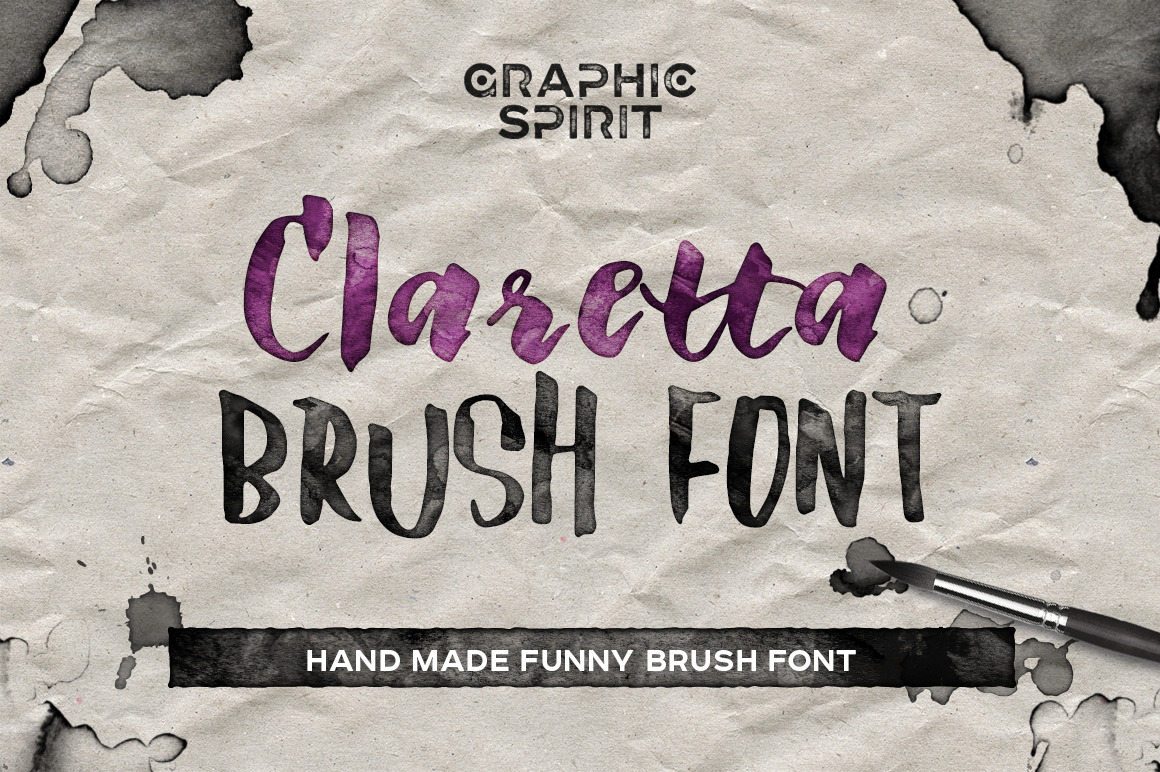
Claretta Brush Ink Font
Download this fun, playful font, hand-drawn brush and ink. It is perfectly suitable for the decoration of informal postcards, posters, kraft style packaging.